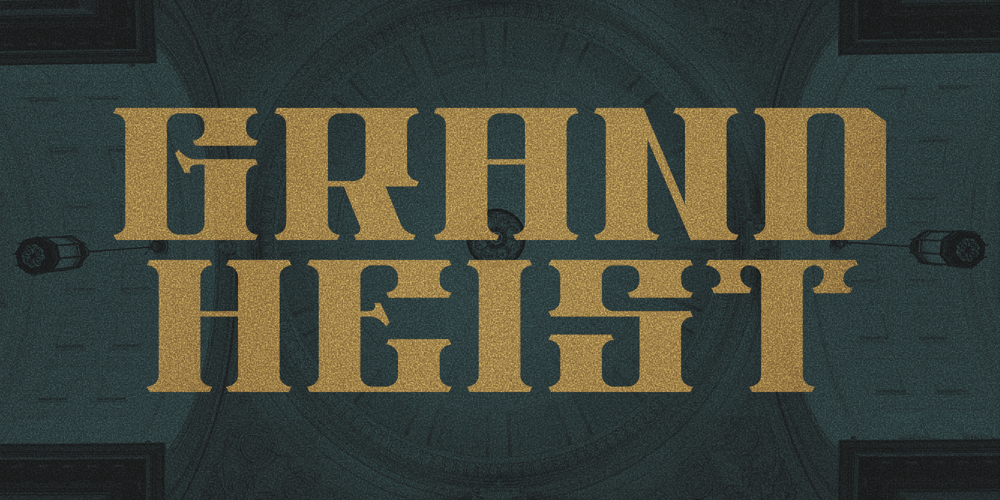
Grand Heist Font Family was designed by Chad Palmer and published by Palmer Type Company. Grand Heist contains 1 styles and family package options. Grand Heist is a bold and unique display typeface, fully equipped with basic and Western European Latin characters, numbers, punctuation, some symbols and special characters. Now we don’t condone robbing banks here, but if you do, we can’t deny that you’ll have way more street credibility if you have this font in your handy fontbook. Just sayin’. Aa-Zz Numbers Multi-language support Symbols Special Characters